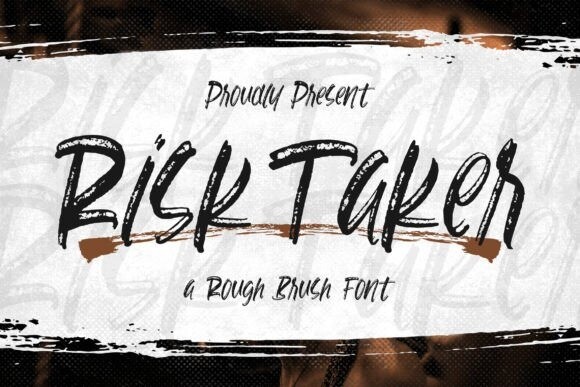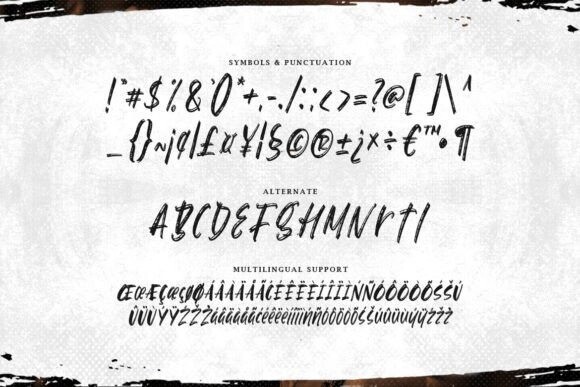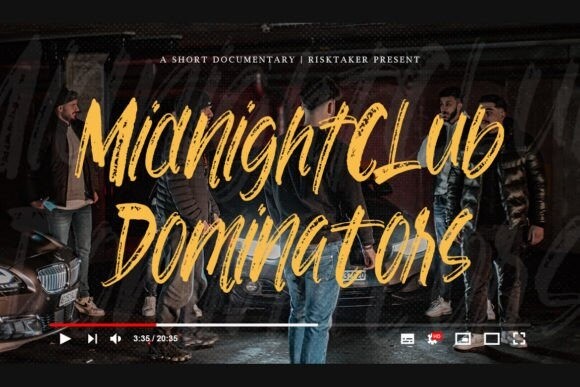
Risk Taker Font
Risk Taker Font – a rough brush font that defies conventions and adds a daring edge to your designs! Embrace the untamed spirit of “Risk Taker” as it transforms your projects with a dash of attitude. Whether you’re crafting daring album covers, urban street art, captivating headlines, or edgy social media graphics, this font will captivate your audience with its rough and fearless style.